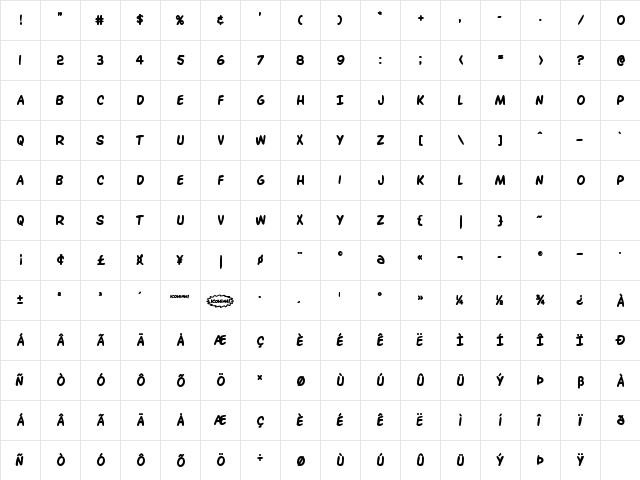
Overstreet Bible Bold Bold Font Preview
Overstreet Bible Bold Bold
Design Context for Overstreet Bible Bold Typeface
Overstreet Bible Bold is a composed and adaptable typeface that performs quietly and consistently across a wide range of design contexts. Its bold stroke weight gives it real presence on the page.